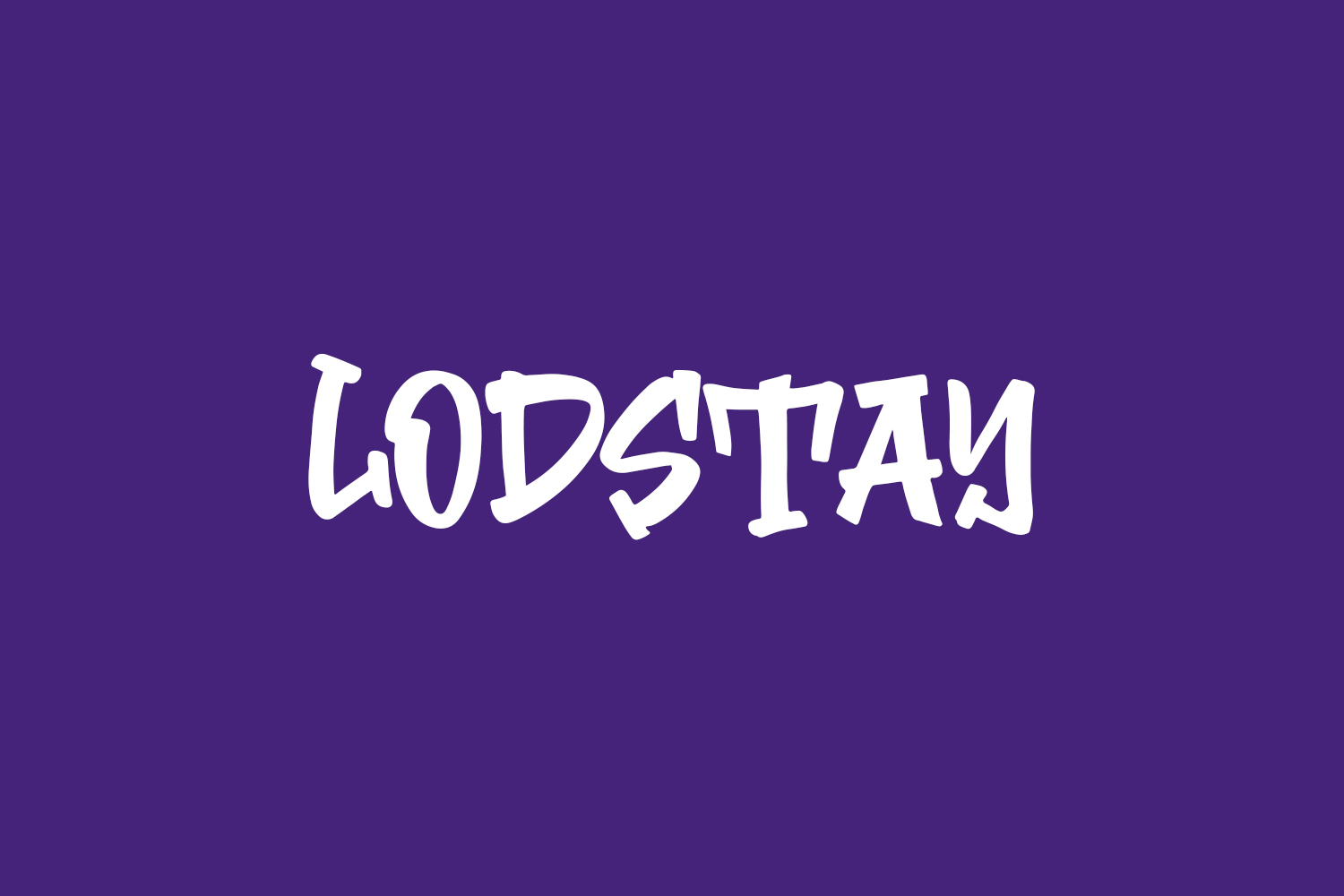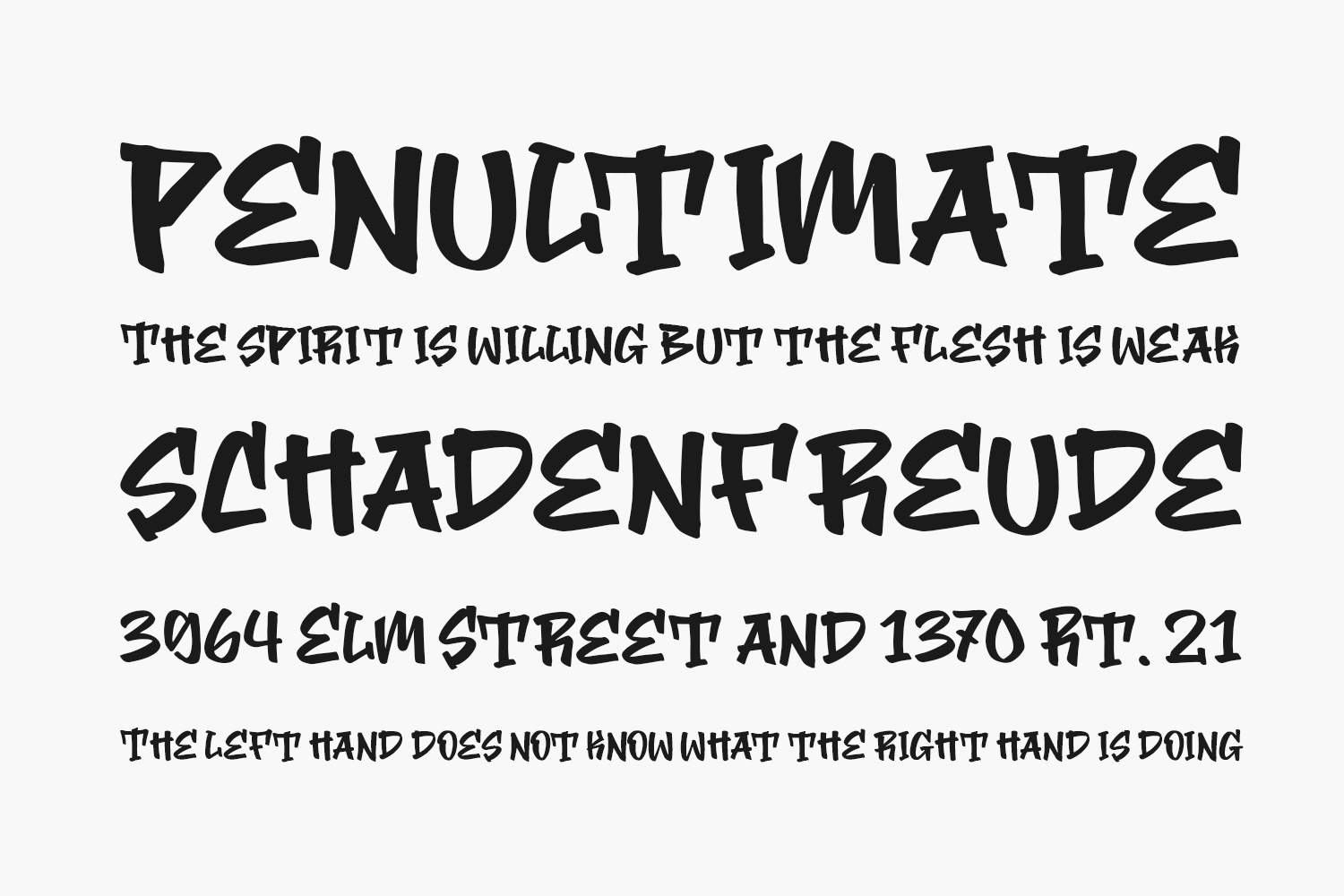
Lodstay Free Font is a bold, dramatic, urban styled display font. Add this font to your favorite creative ideas and notice how it makes them come alive. Lodstay Free Font was designed by Bangkit Tri Setiadi and is free for personal use only. Please purchase the full version for commercial use.